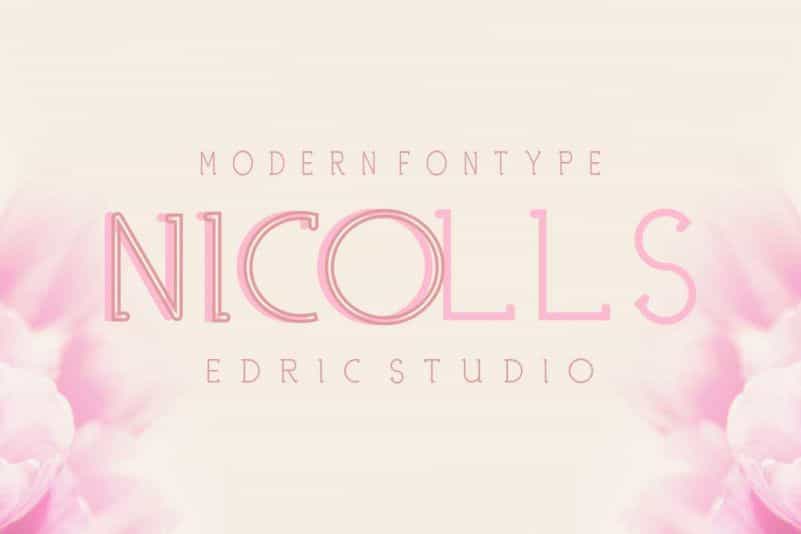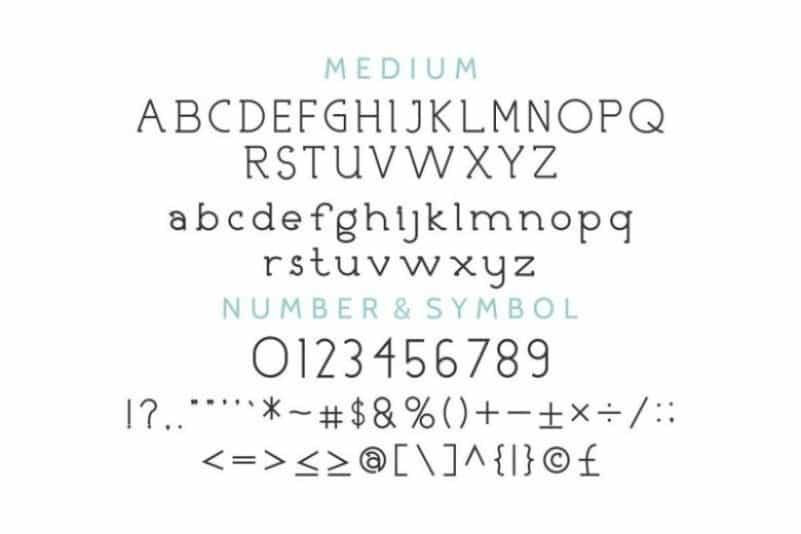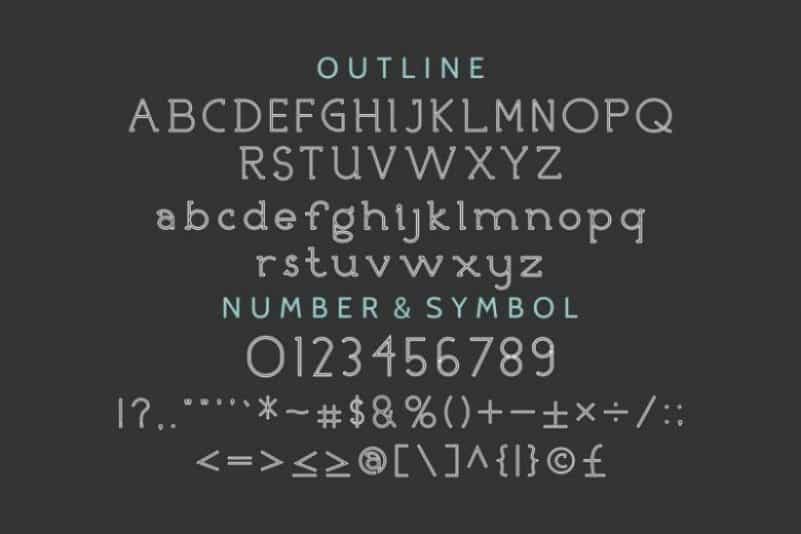
Please meet our newest font : The Nicolls Font Family! It is a fresh modern sans display and feminine style font. It is a modern typeface with a crisp, refined, exclusive and trendy glyph.